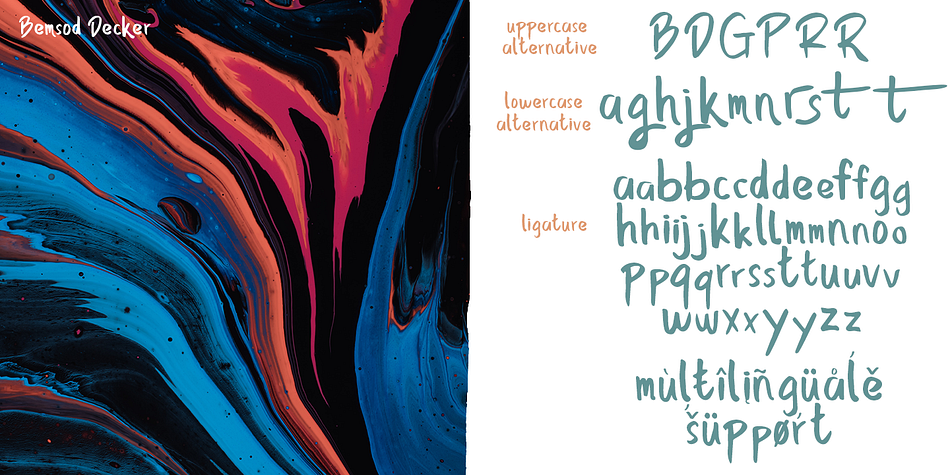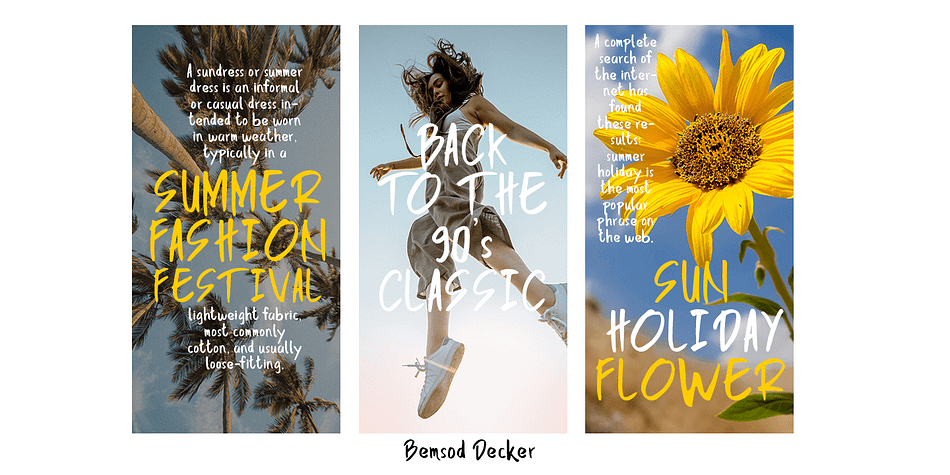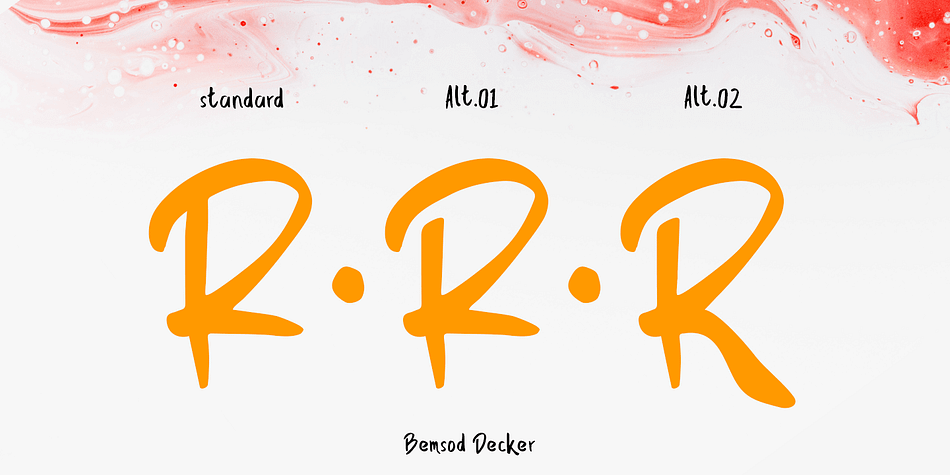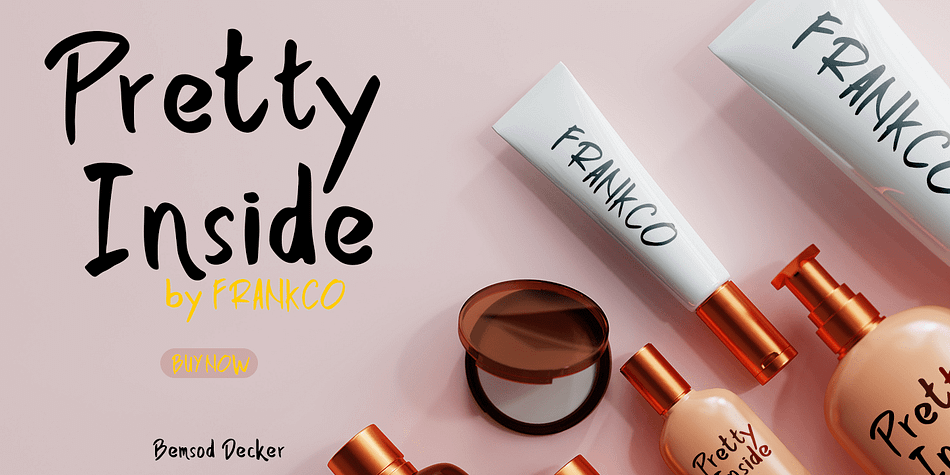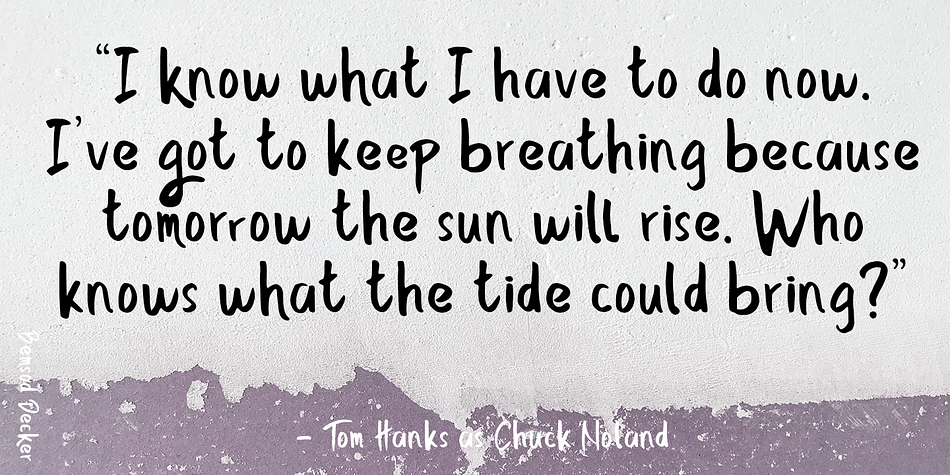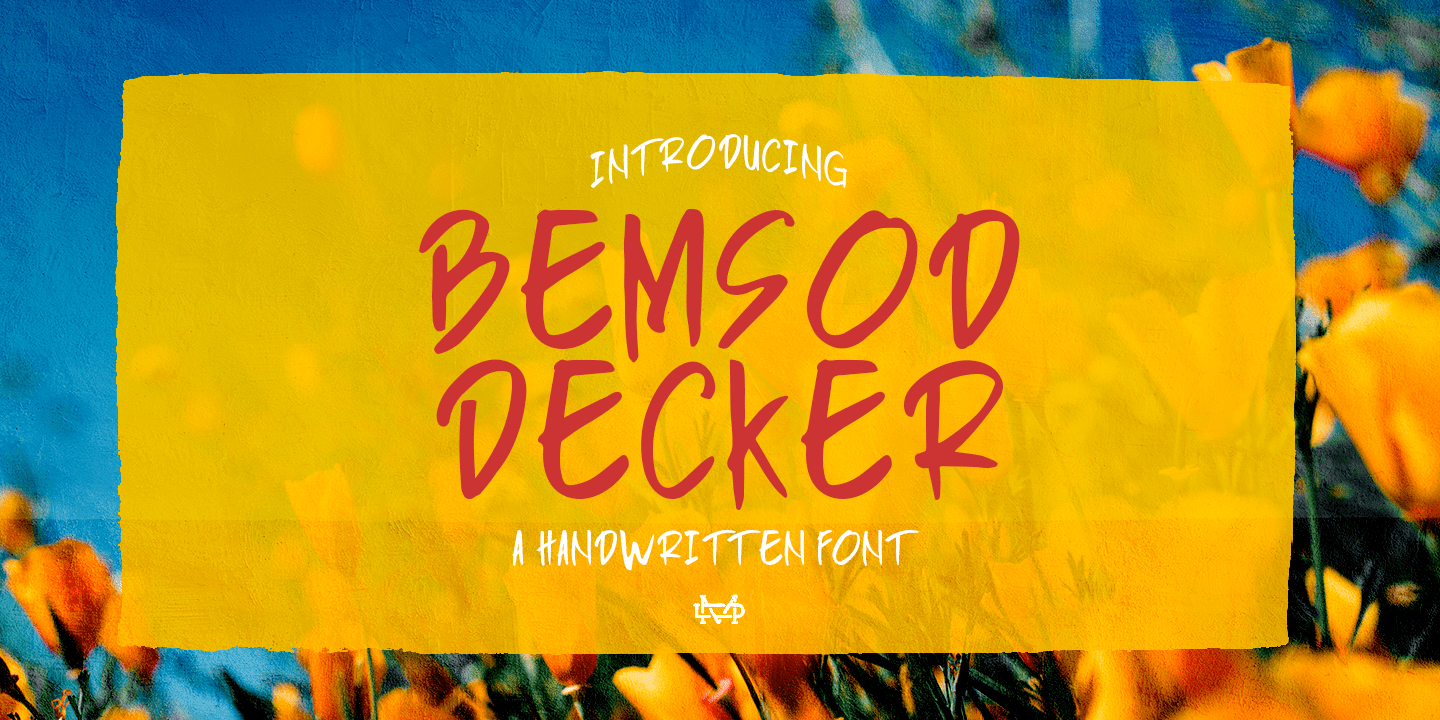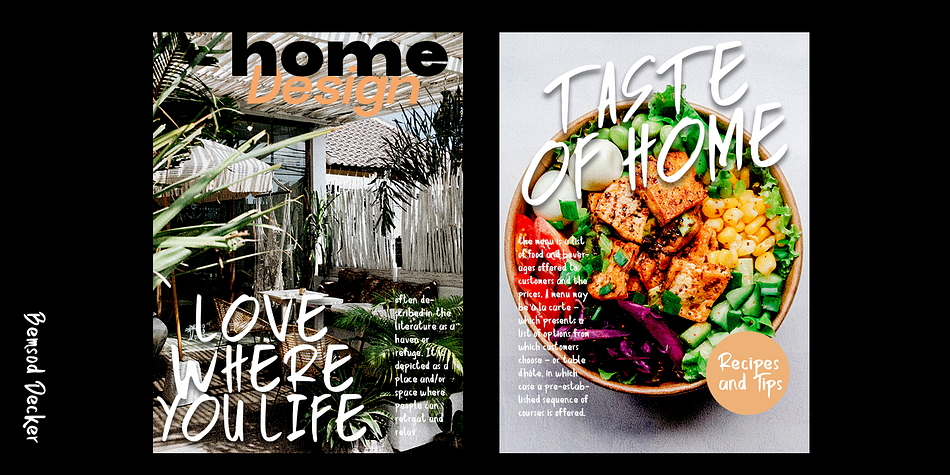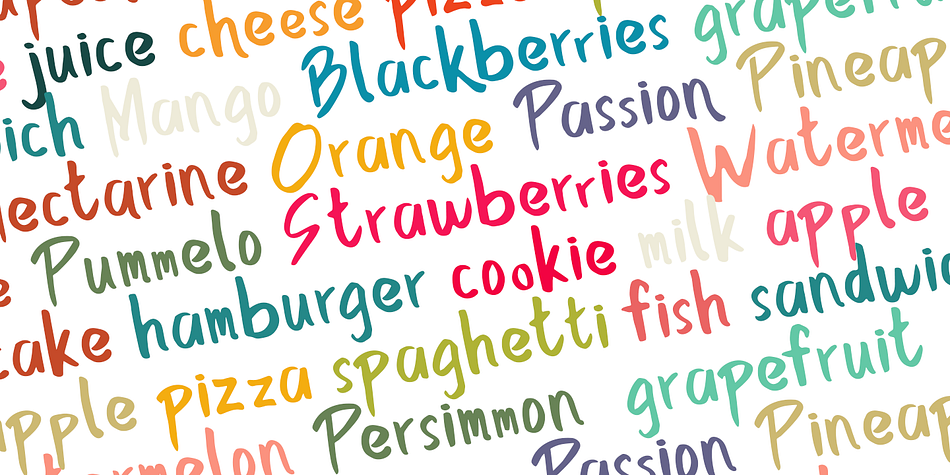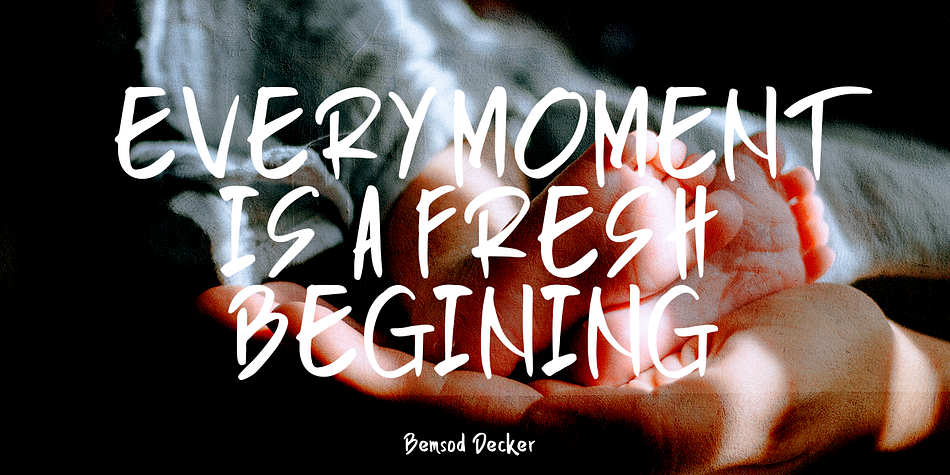
Bemsod Decker
Designed by Suandana Ipandemade, Bemsod Decker is a hand drawn font family published by madeDeduk.
Introducing Bemsod Decker is a casual handwritten font and will be perfect for book, title branding, product packaging, invitation, quotes, label, poster, logo etc.
- Alternative
- Ligature